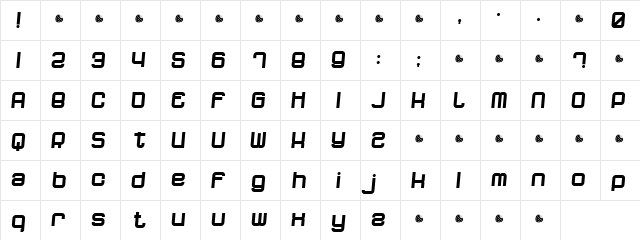
dopenakedfoul phatrelaxed Regular
Design Context for dopenakedfoul phatrelaxed Typeface
dopenakedfoul phatrelaxed is a composed and adaptable typeface that performs quietly and consistently across a wide range of design contexts.